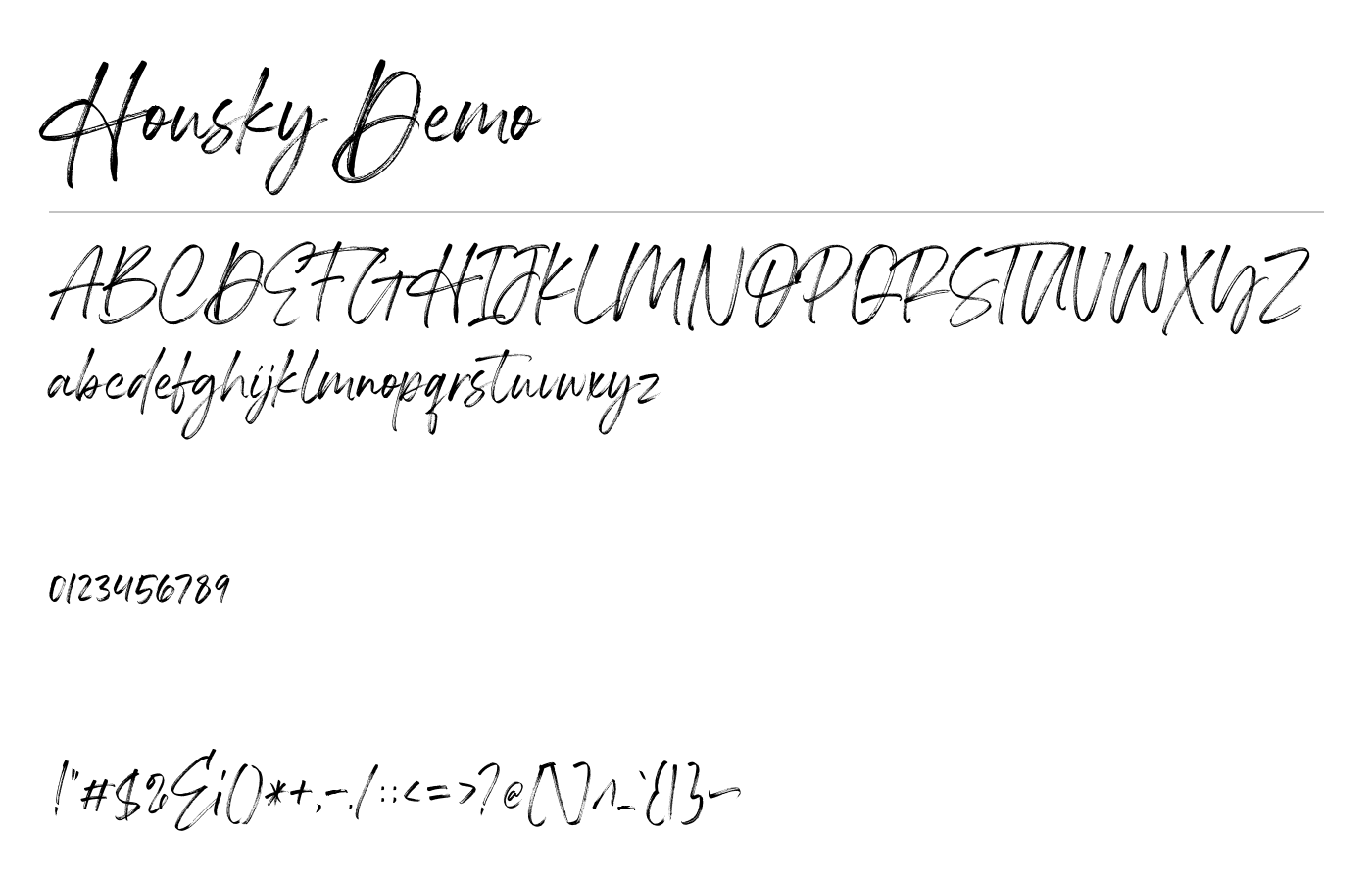
Housky Font is a lively and expressive script typeface with a hand-drawn, brush-like texture that gives it a casual yet artistic feel. Its tall, narrow letterforms with irregular strokes and playful variations evoke a sense of creativity and personality, making it ideal for creative branding, invitations, and striking headlines. This font works best where a personal, handcrafted touch is desired to convey warmth and originality.
Housky Font
About Housky Font
| Font family | Housky Font |
| Designer | Megi Satyo Widodo |